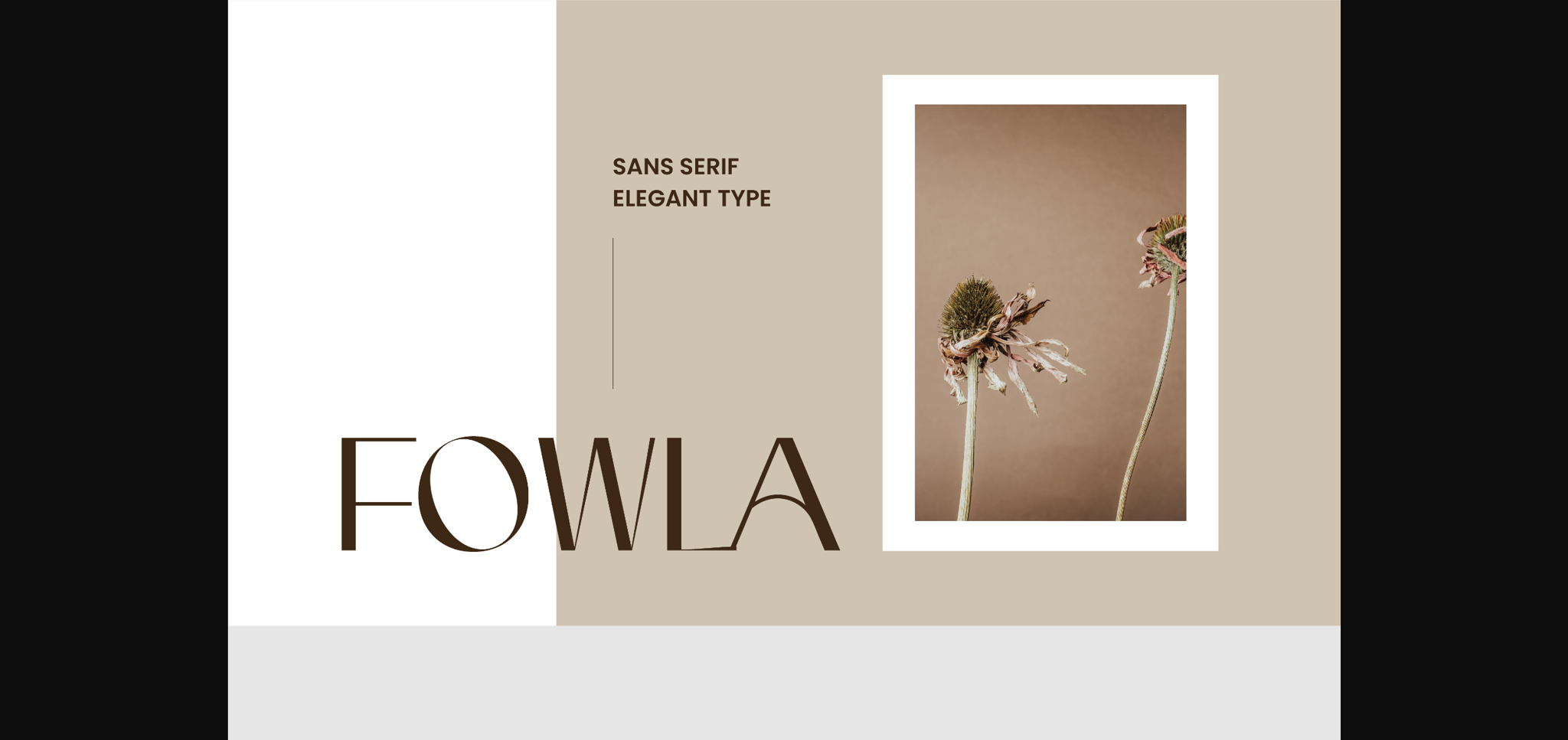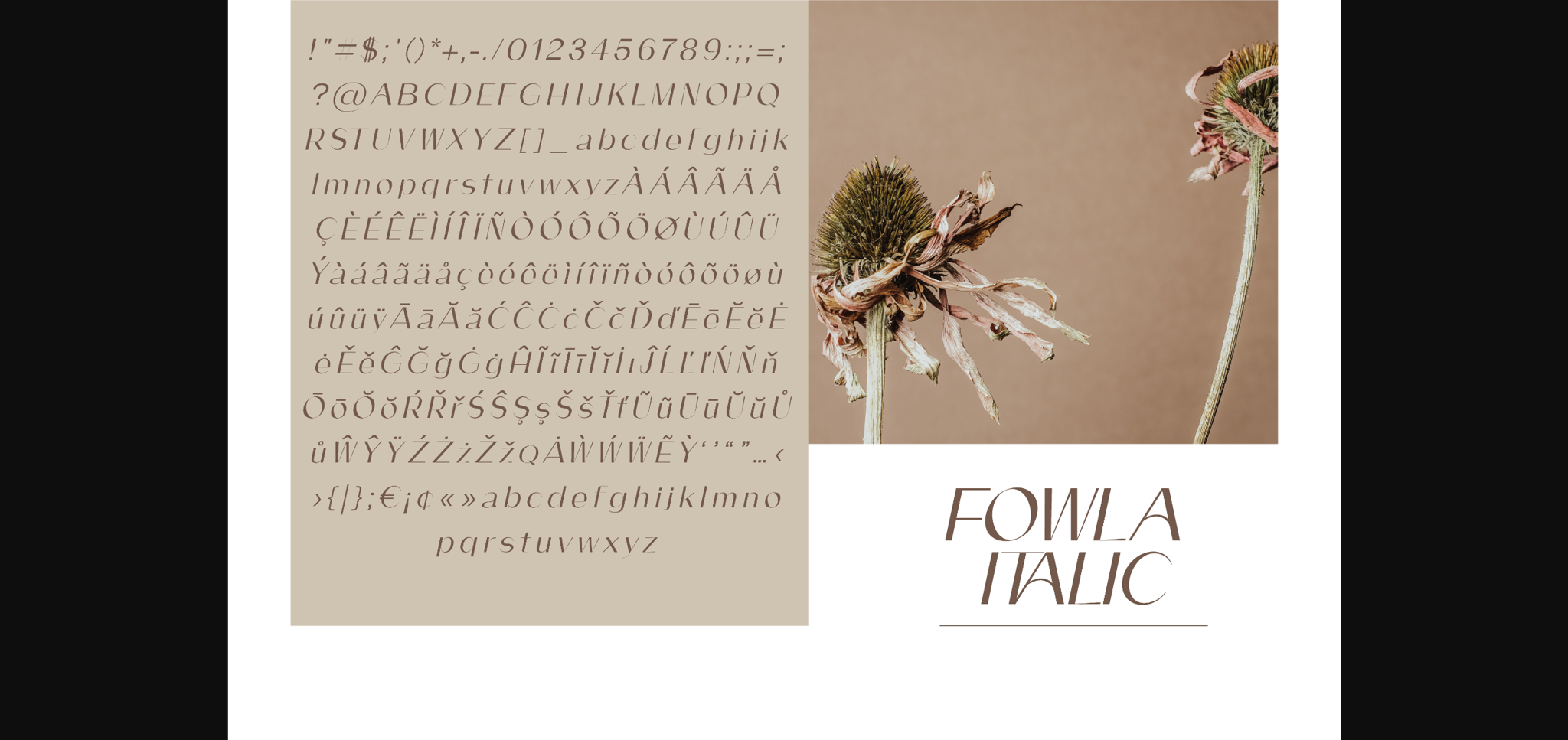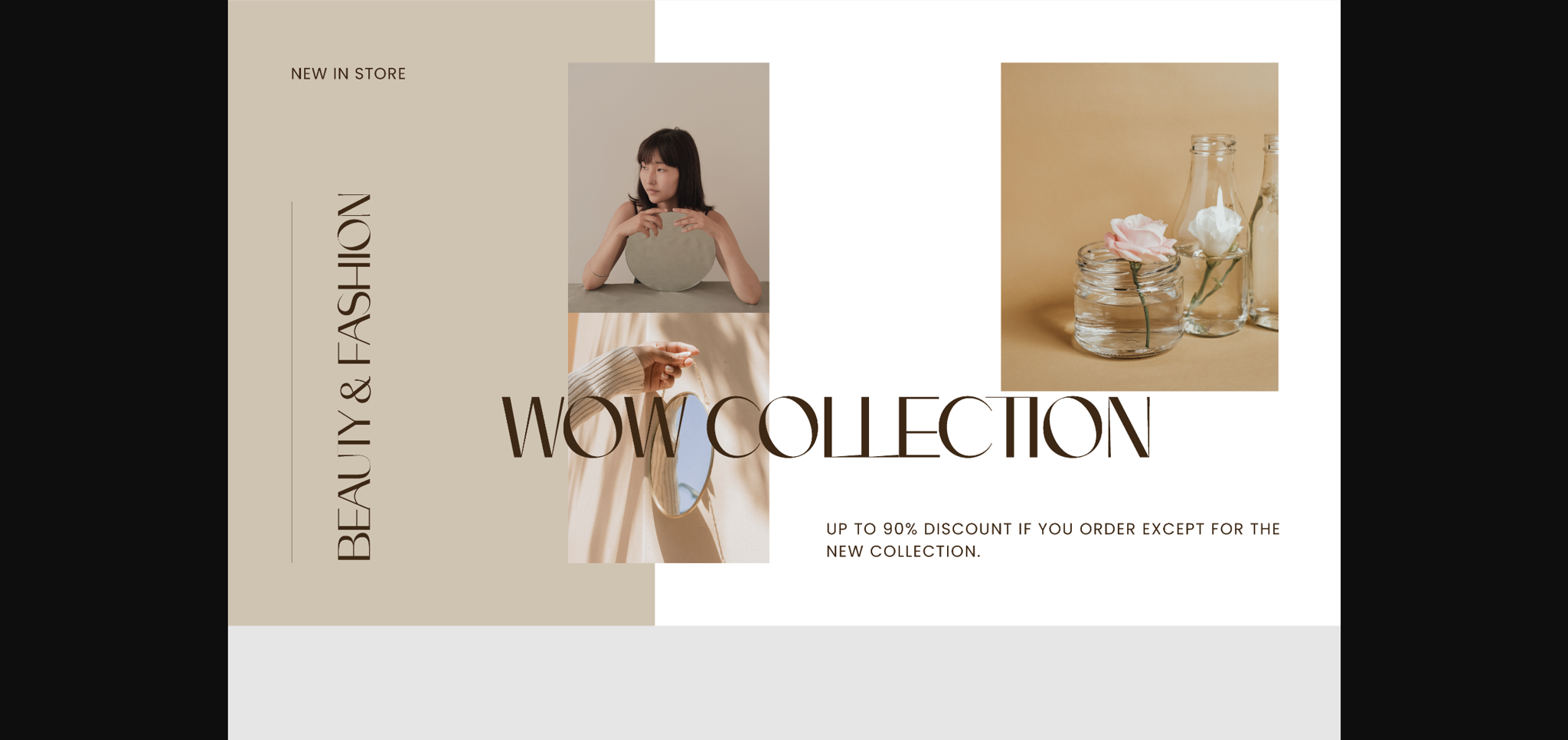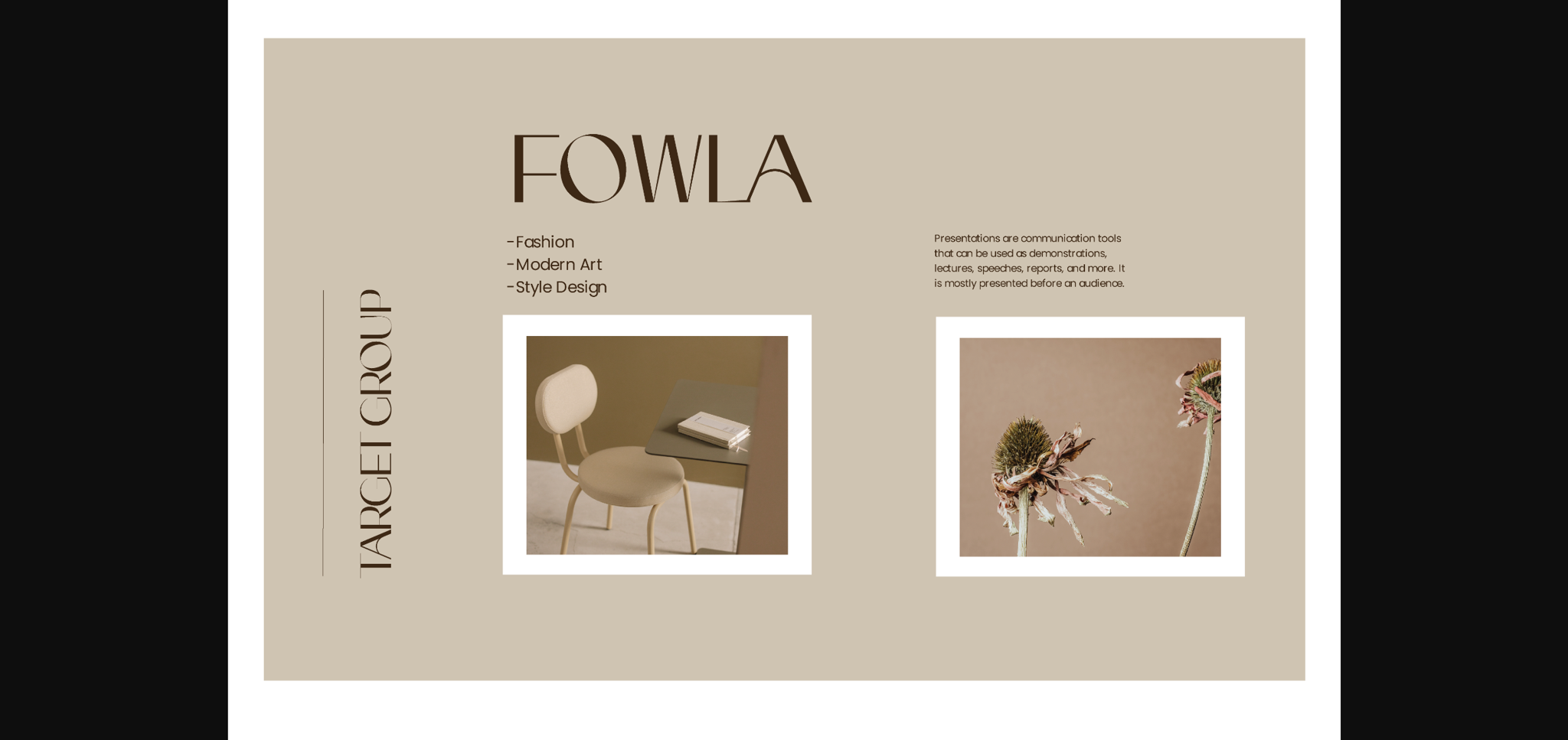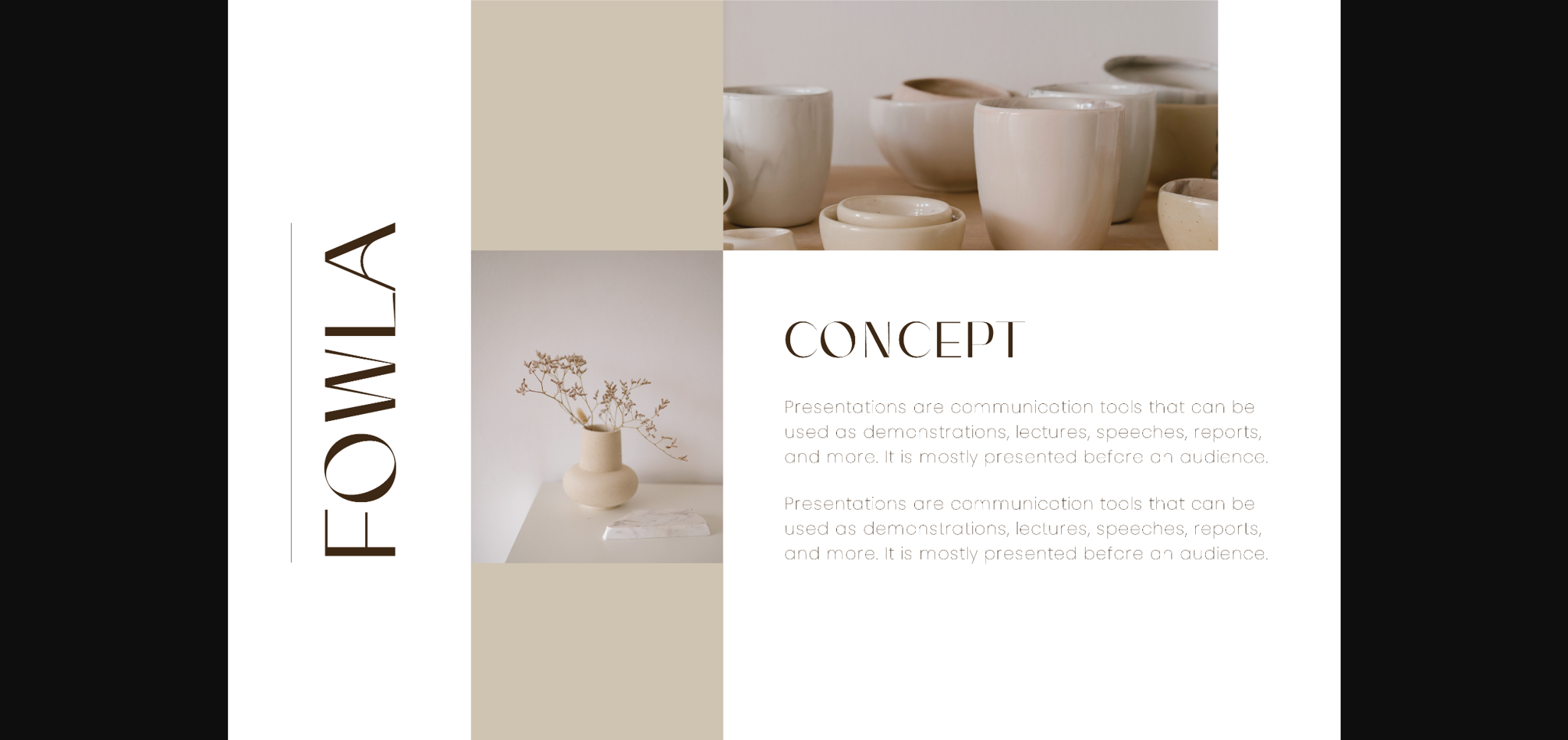
About Fowla Font
Fowla is a trendy, elegant, and stylish sans-serif typeface. It comes with both regular and italic effects. It suits numerous contexts and design themes such as packaging design, posters, cosmetics, social posts, logos, etc. Use it confidently in your creation because it will certainly add a luxury touch to any design you are working on!